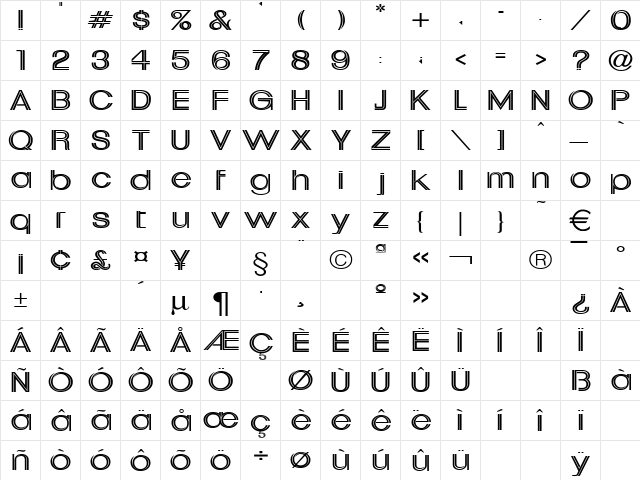
DowntownWide Normal
Design Context for DowntownWide Typeface
DowntownWide takes a measured approach to typography — its balanced proportions and neutral character make it a reliable workhorse for both digital and print work.